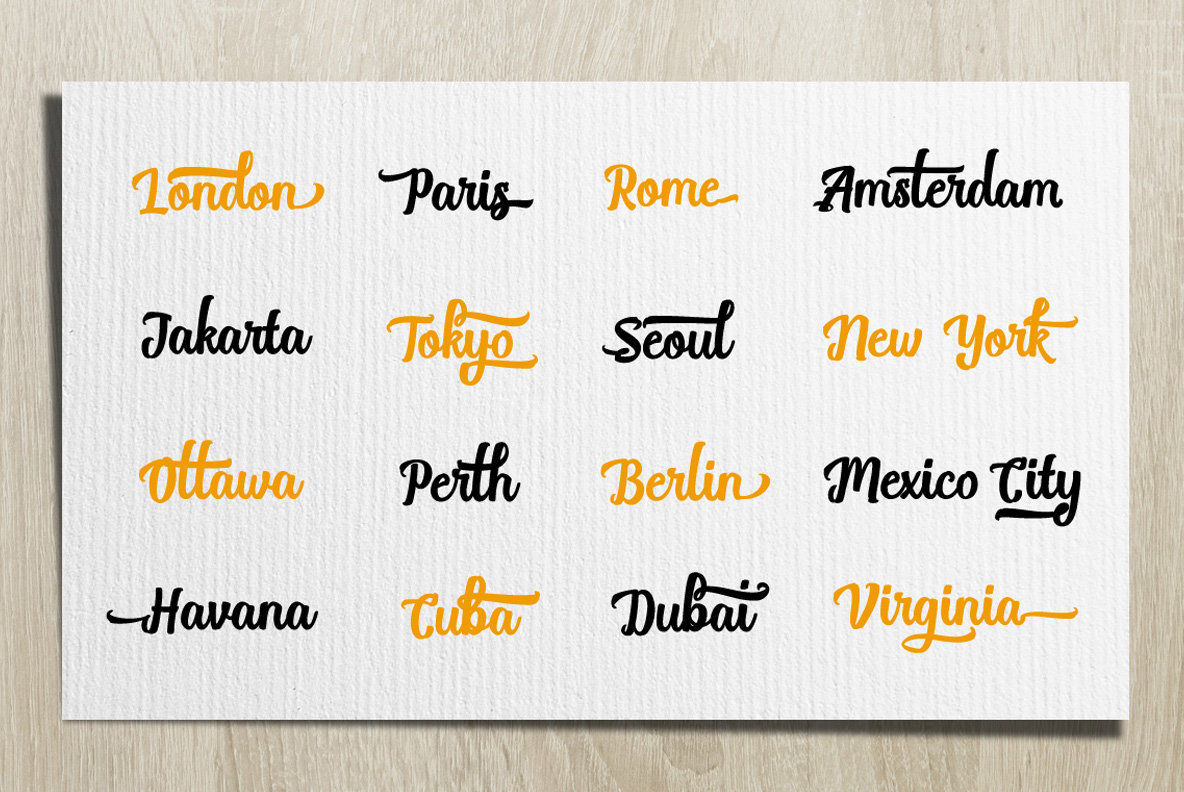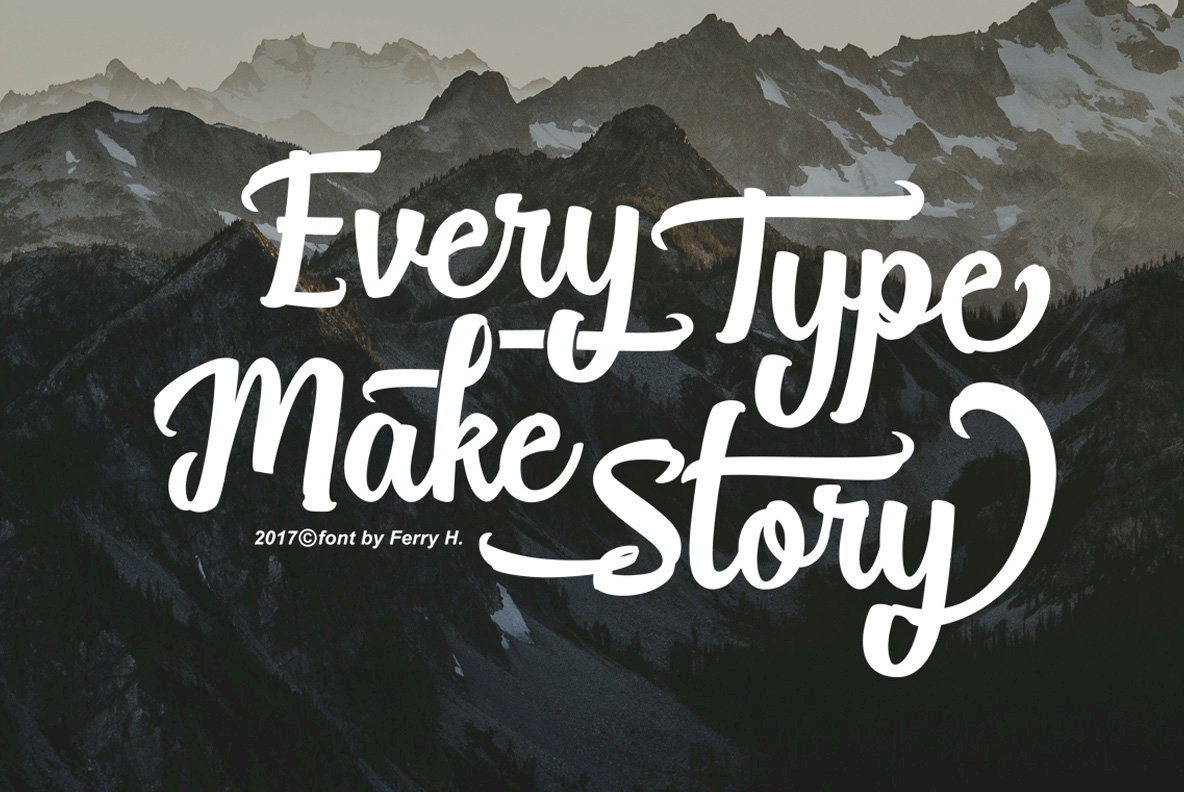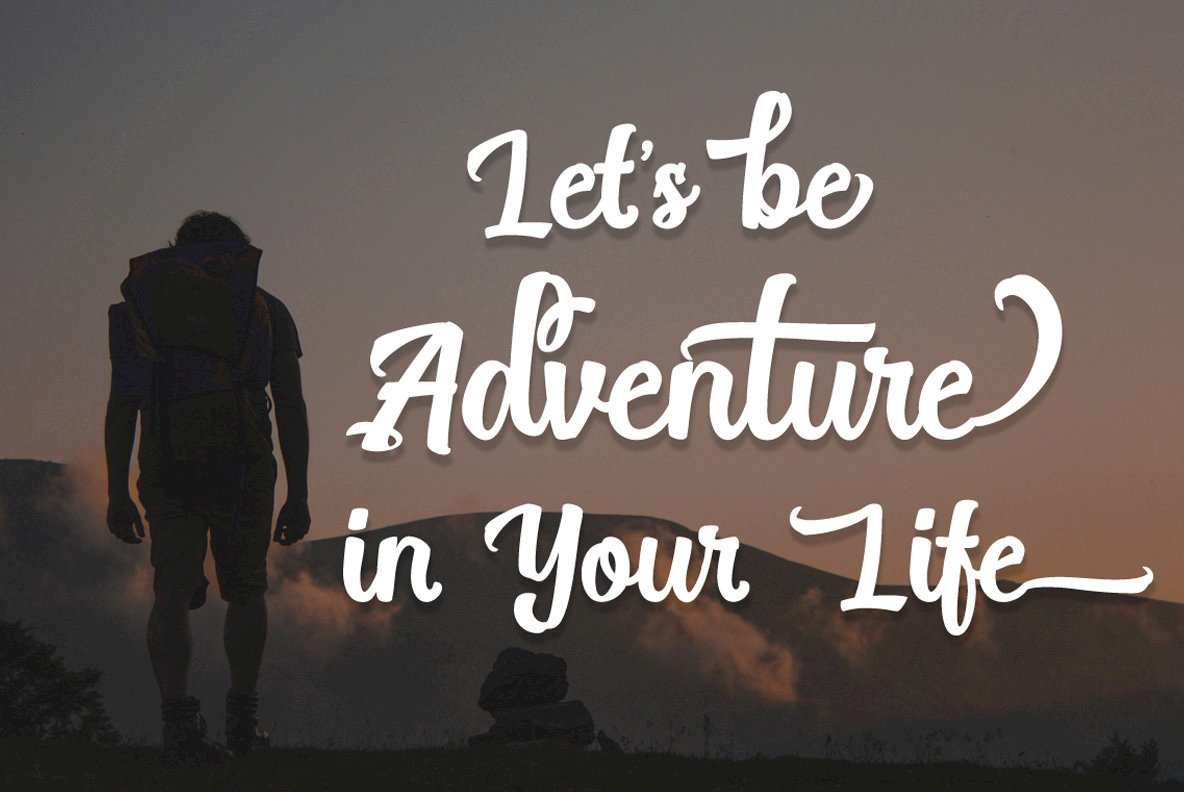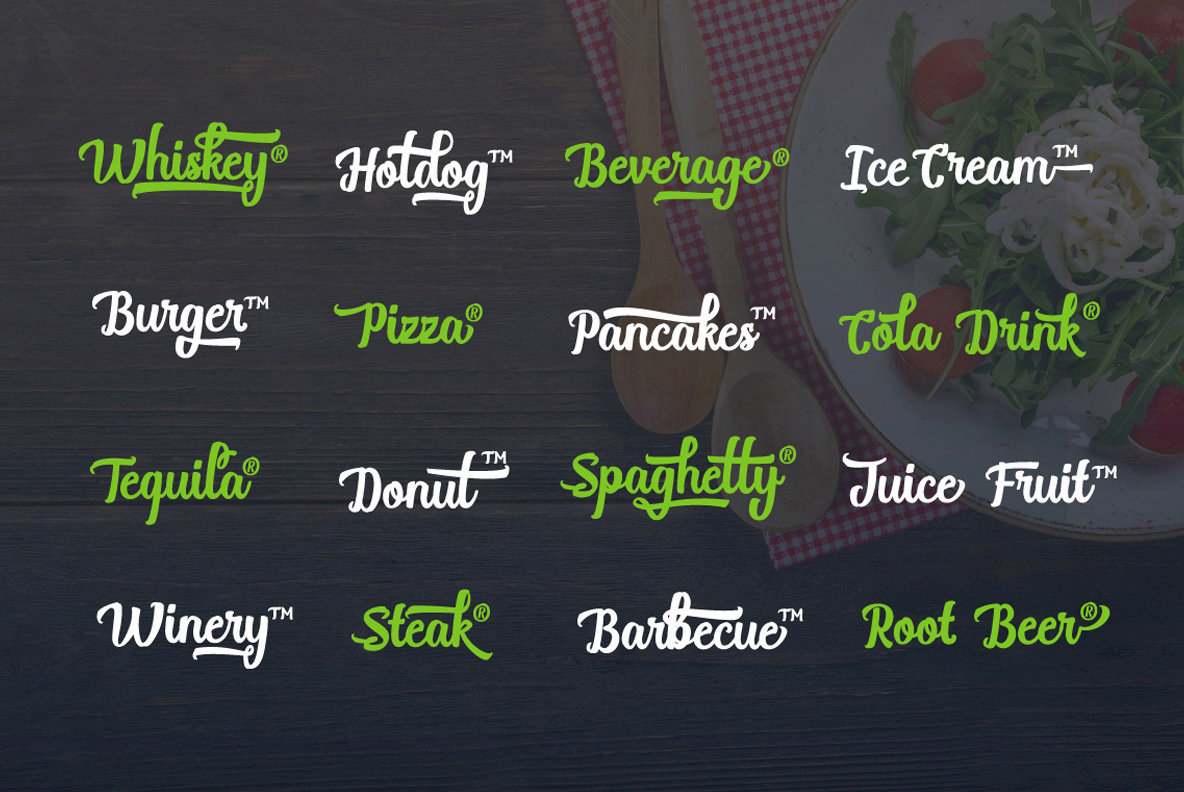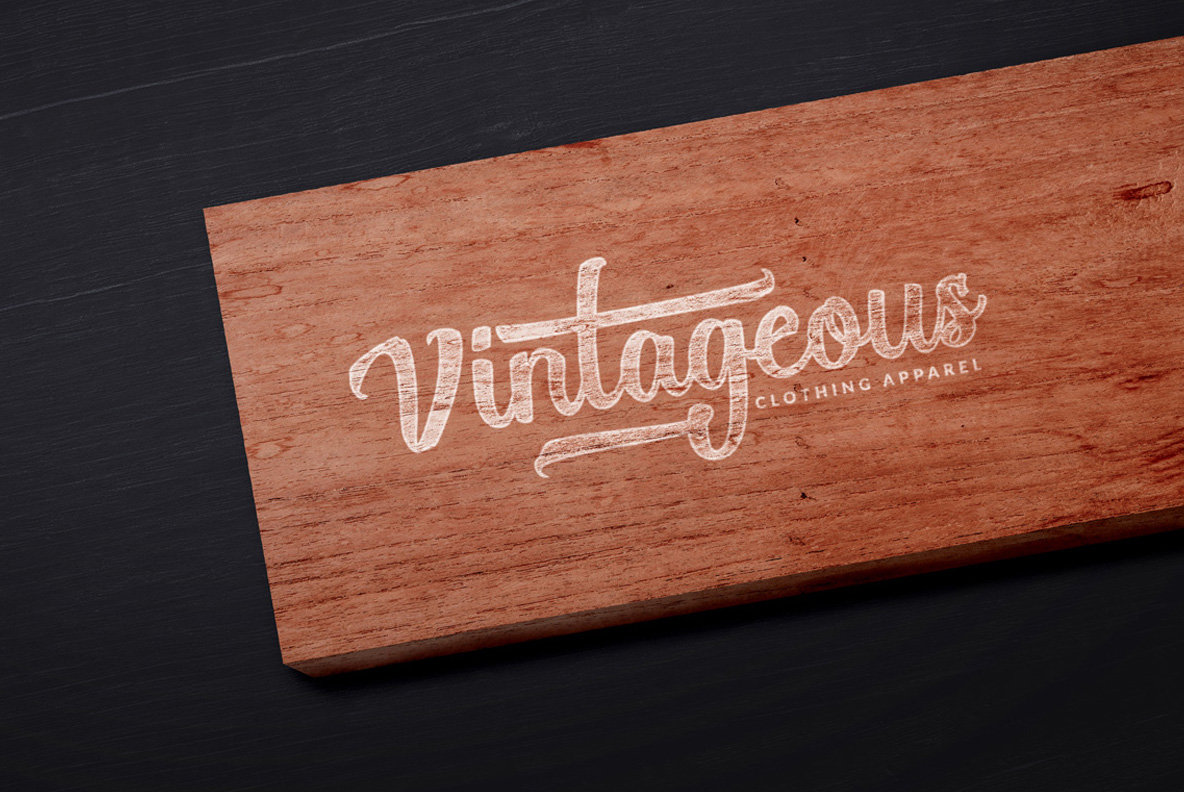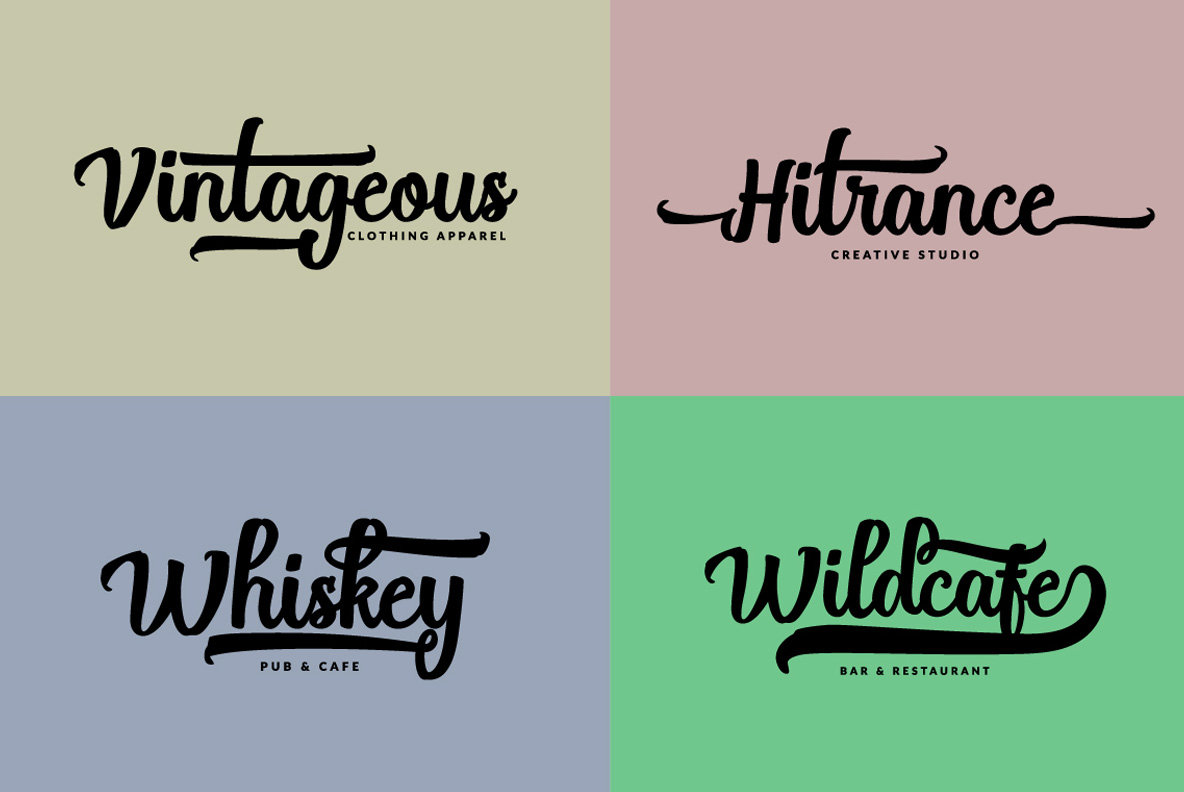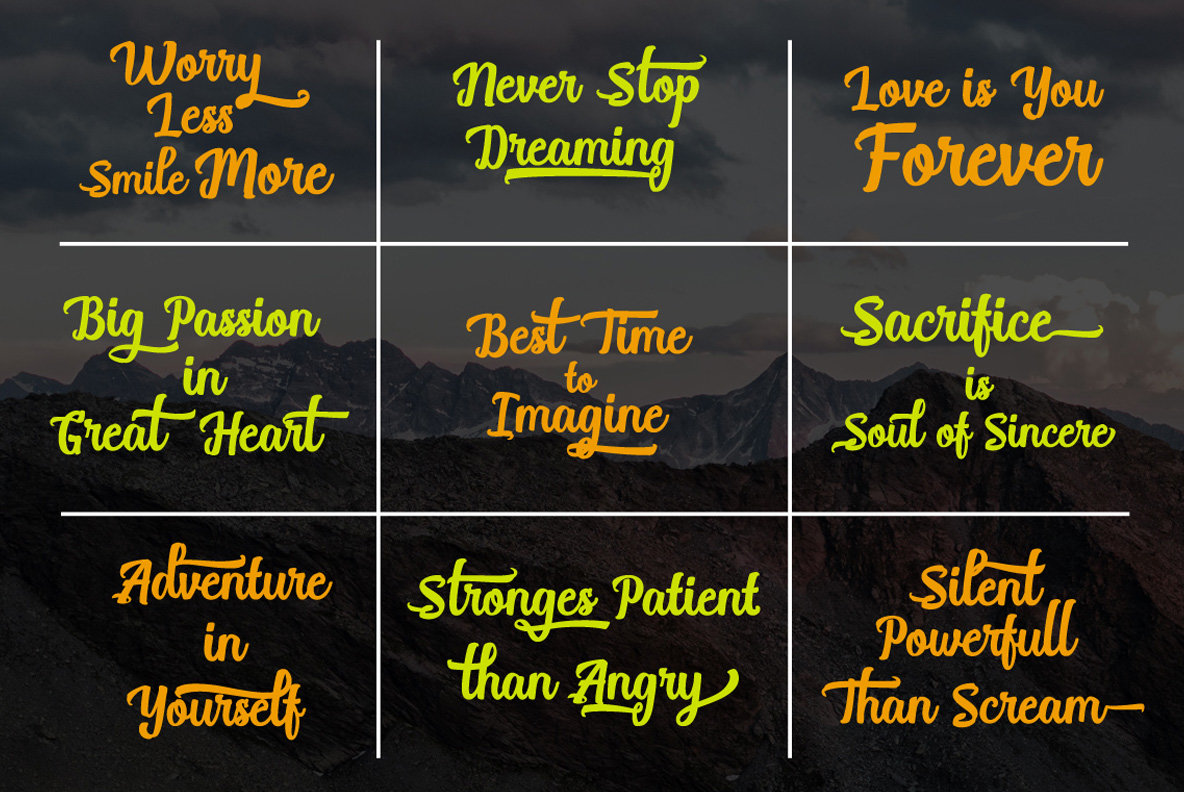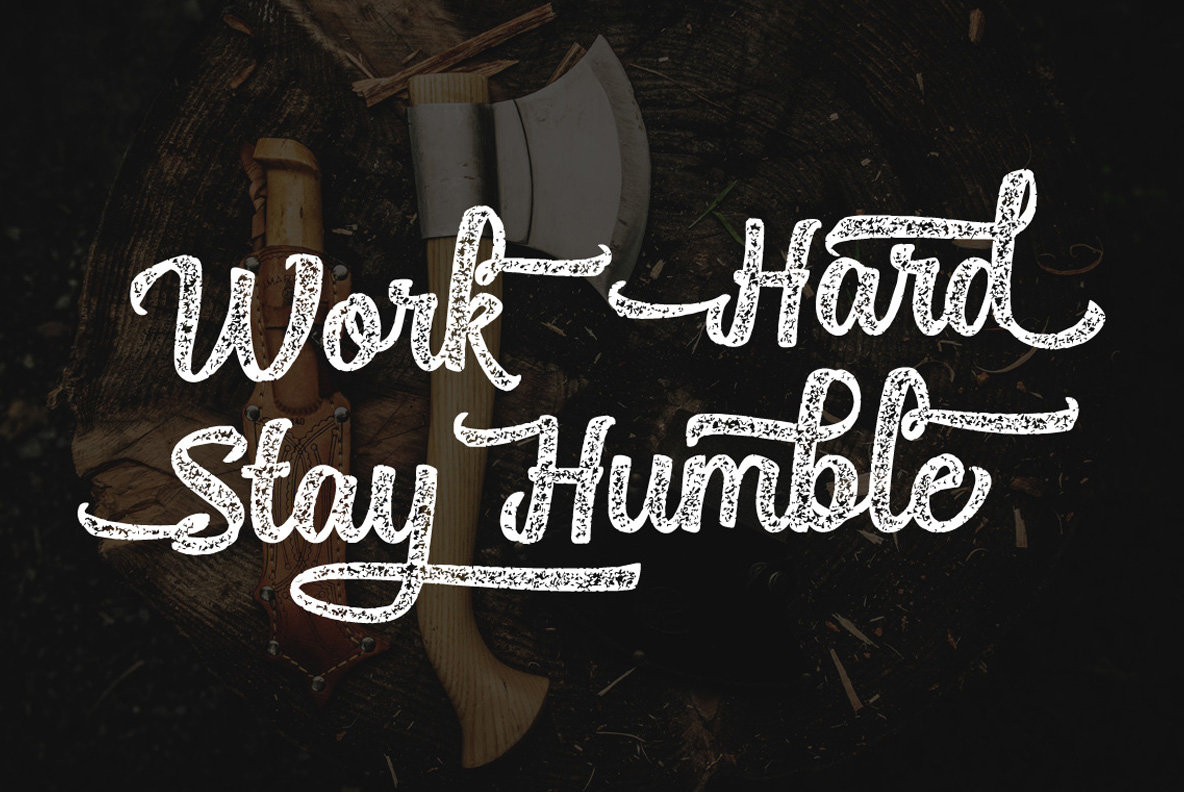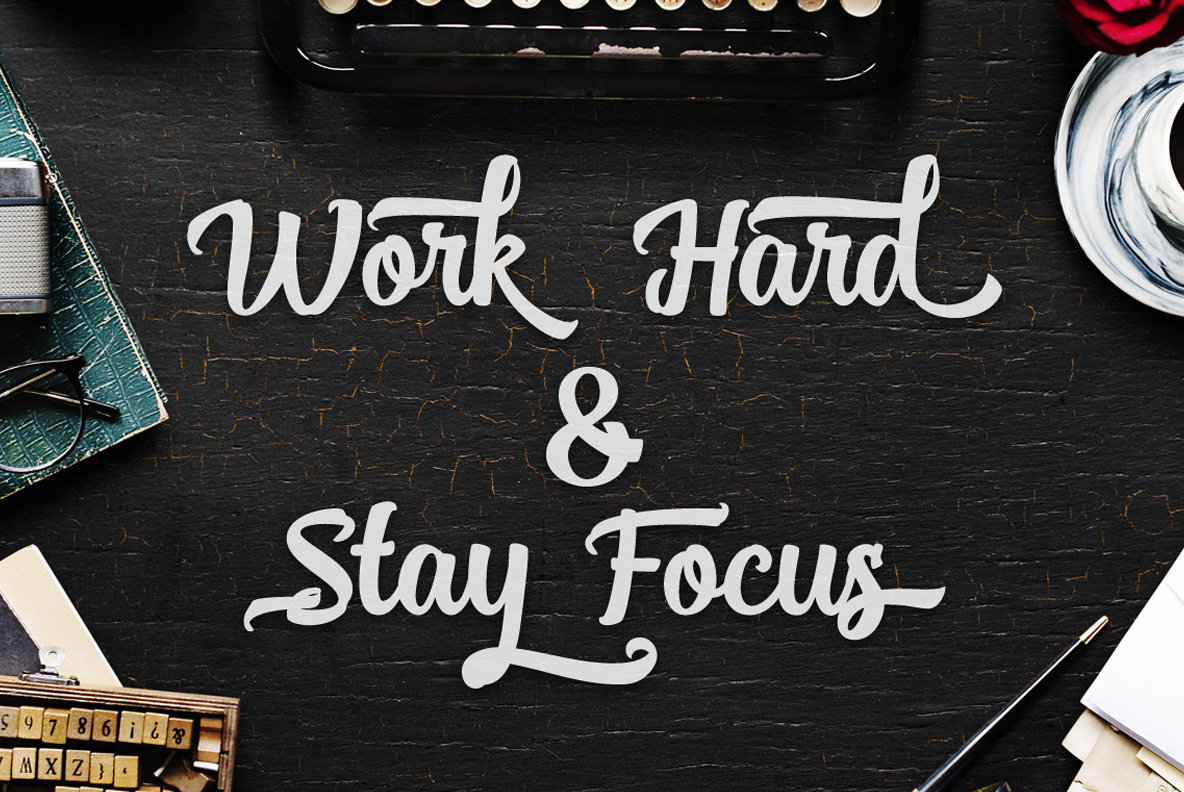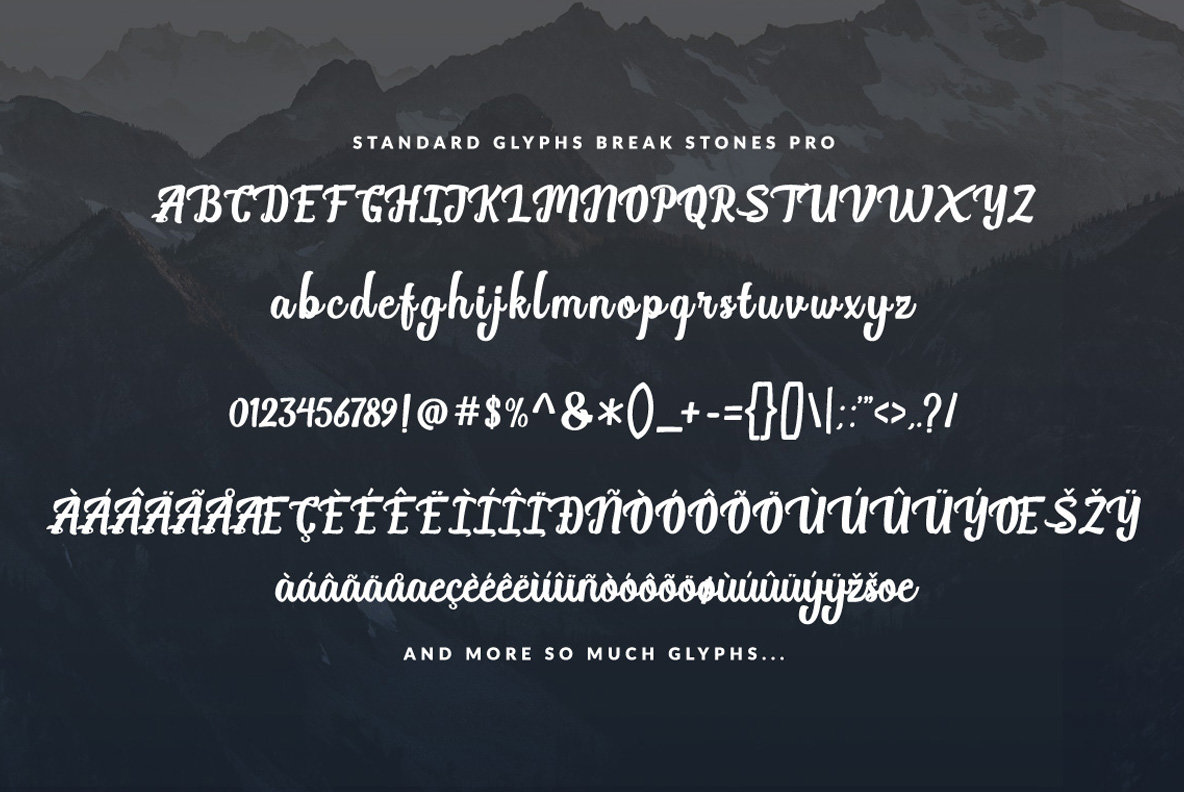
Break Stones Font
Break Stones
Break Stones stands as a distinctive script brush font that channels a vintage aesthetic. With its considerable repertoire of 1,218 glyphs, it is designed to cater to an array of creative endeavors. Offering robust opentype support, this font enriches any design project with its versatile attributes.Break Stones: Vintage Script Brush Font